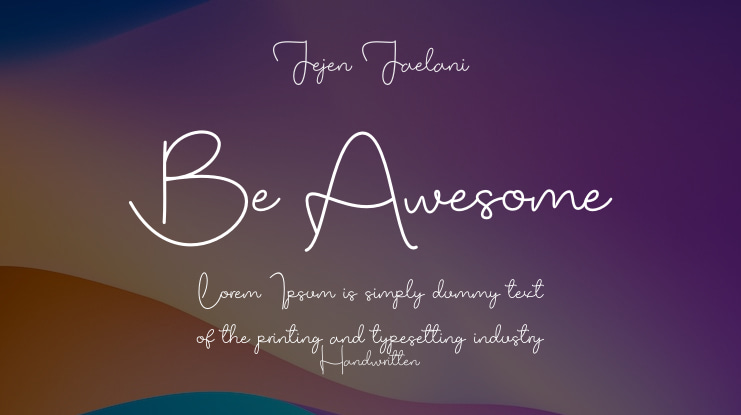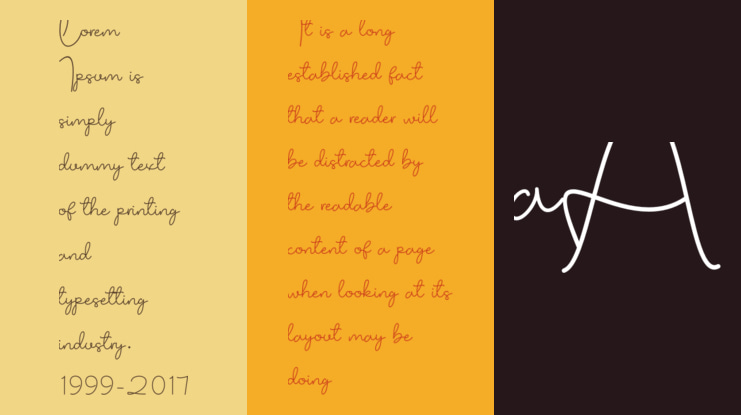
Be Awesome Font Family
Introducing "Be Awesome" is a stunning and elegant script font that blends modern sophistication with classic calligraphic charm. Designed with fluid strokes and smooth curves, this font brings a natural handwriting feel, making it perfect for various creative projects.
With its stylish swashes and well-balanced letterforms, Be Awesome is ideal for branding, invitations, logos, social media posts, and more. Whether you need a touch of elegance or a handwritten aesthetic, this font will add personality and charm to your designs.
Numeral and Punctuation
Regulat & Italic
Initial Lowercase & Final Lowercase